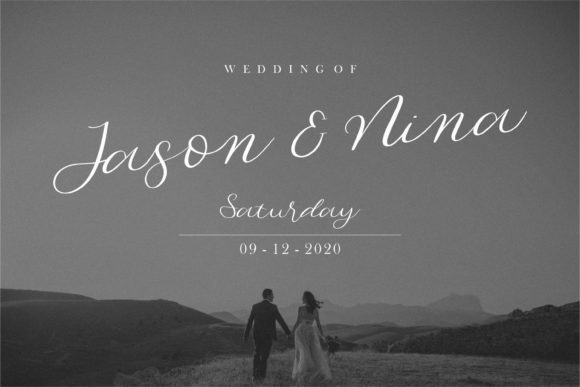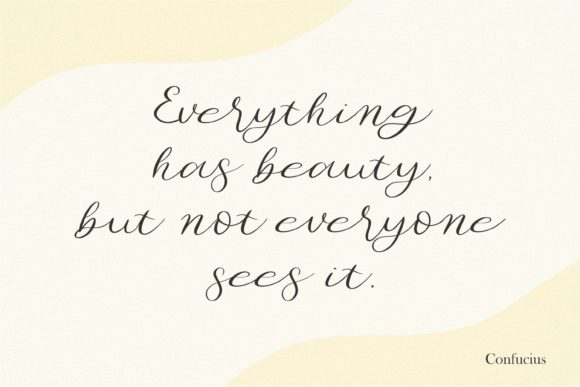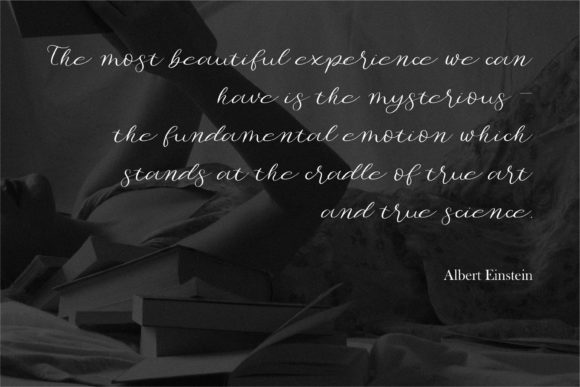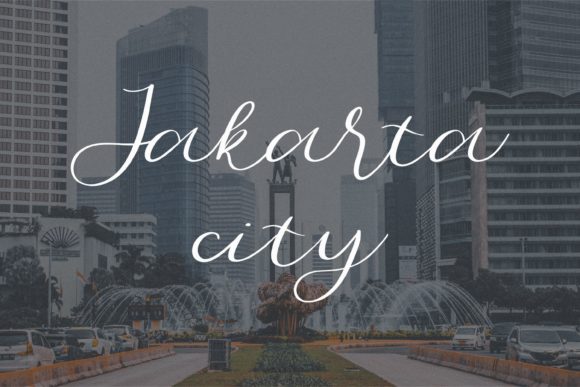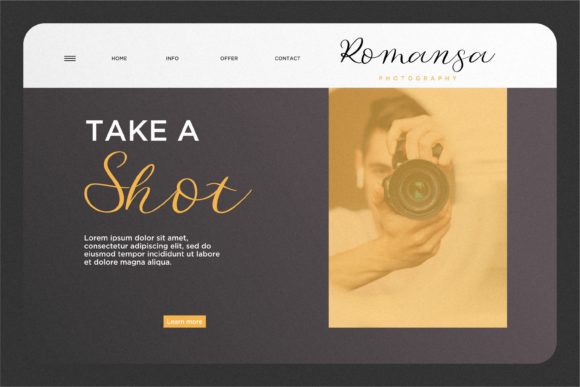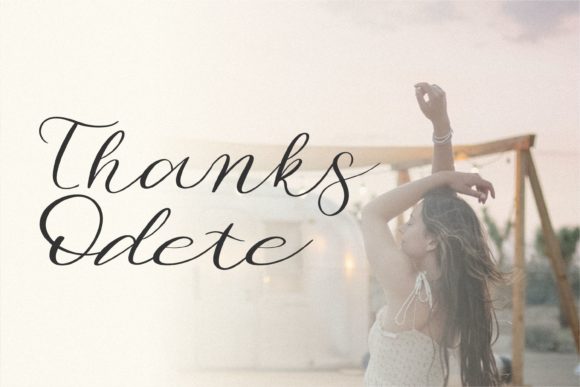
Enter Beautiful Odete Font, a romantic and sweet calligraphy typeface that’s sure to capture hearts. With its delicate dance along the baseline, Beautiful Odete Font adds a touch of whimsy to any design project, making it perfect for wedding invitations, baby announcements, or any other occasion that calls for a delicate, feminine touch.
For designers looking to add a little extra magic to their work, Beautiful Odete Font is a valuable asset. Its unique charm and character make it a standout choice for any project, and its versatility means it can be used in a wide range of applications, from digital design to print materials.
Beautiful Odete Font Key Features
- Font Family: Beautiful Odete Font offers 8 different styles, including Regular, Italic, Bold, Bold Italic, and more.
- Unique Characteristics: Beautiful Odete Font features a unique, elegant design with intricate details and subtle flourishes, making it perfect for creative projects.
Beautiful Odete Font Review
I recently had the chance to work with the Beautiful Odete Font, and I must say it’s a lovely addition to any design project. ✨ Here are some of the things that stood out to me:
- Legibility: The Beautiful Odete Font is incredibly easy to read, even at smaller font sizes. This makes it perfect for body text or headings.
- Variety: The font comes in a range of weights and styles, from light to bold, which gives designers a lot of flexibility when it comes to creating visually appealing typography.
- Character: The Beautiful Odete Font has a unique, elegant feel that adds a touch of sophistication to any design.
However, like any font, the Beautiful Odete Font has its limitations. ⚠️ Here are a few things to keep in mind:
- Complexity: The font’s unique style can make it difficult to pair with other fonts, and some designers may find it too ornate for certain projects.
- File size: The Beautiful Odete Font is a bit on the heavier side, which can slow down loading times for websites or other digital projects.
Overall, I think the Beautiful Odete Font is a great choice for designers looking to add a touch of elegance to their projects. While it may not be the best fit for every project, it’s definitely worth considering for the right design.
Getting the Most Out of Beautiful Odete Font
To get the most out of Beautiful Odete Font, try the following tips:
- Use the font in combination with other elegant fonts for a sophisticated look.
- Use the font to create headings and subheadings that stand out from the rest of the text.
The Beautiful Odete Font is ideal for:
- Artistic and creative projects.
Alternatives to Beautiful Odete Font
Cream Soda Font is a elegant script font with a vintage touch. It’s ideal for designing invitations, wedding cards, and other special occasion materials. This font is more cursive and less ornate compared to Beautiful Odete Font, making it perfect for those who want a more subtle look.
Great Vibes Font is a modern script font that’s perfect for designing social media graphics, logos, and advertisements. It’s more energetic and playful compared to Beautiful Odete Font, making it ideal for brands that want to convey a youthful and vibrant image. Great Vibes Font is also more versatile and can be used for a variety of purposes.